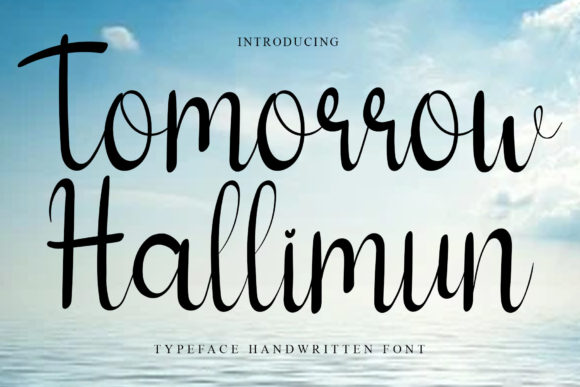
About Tomorrow Hallimun Font
Tomorrow Hallimun is a unique and elegant handwritten font. It looks beautiful on a variety of designs requiring a personalized style, such as wedding invitations, thank you cards, weddings, greeting cards, logos and so on.